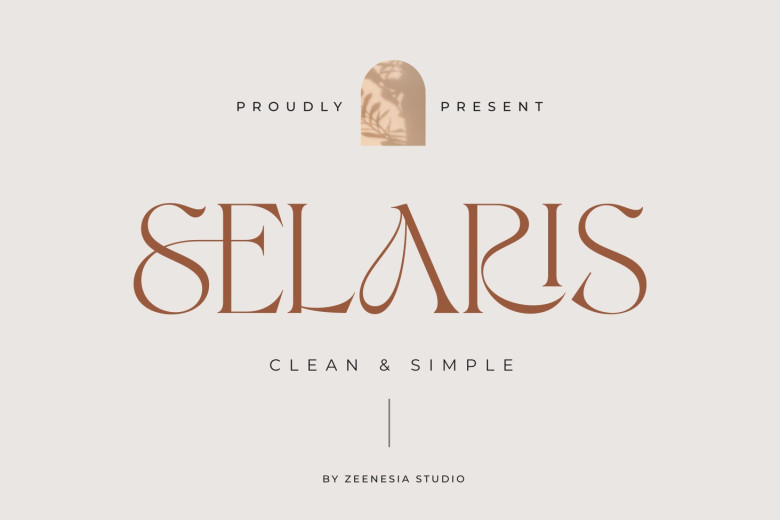
Selaris Font
Selaris is an exquisite, feminine serif font with romantic aesthetics. Perfect for digital design projects, crafting presentations or greeting cards for loved ones, Selaris will quickly become one of your go-to fonts in any situation!
Selaris Serif Font